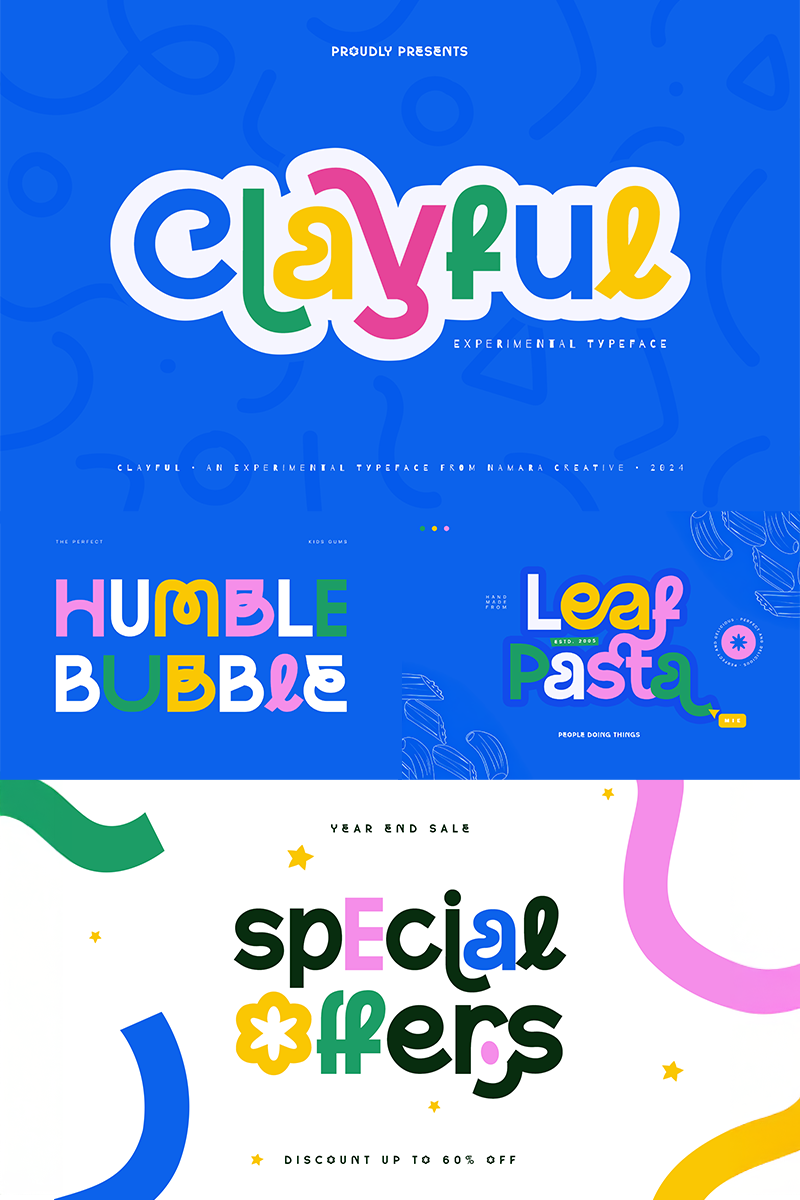
Font name: | Clayful |
Author: | Namara Creative |
Note by Namara Creative | |
Meet Clayful, the modern typeface that brings a burst of creativity to your designs. With its fresh, playful vibe, Clayful is the perfect way to stand out and make a bold statement. NOTE : - This font is PERSONAL USE ONLY, NO COMMERCIAL USED ALLOWED. - Link to purchase Full Version and Commercial license : https://onedsgn.com/product/clayful-typeface |